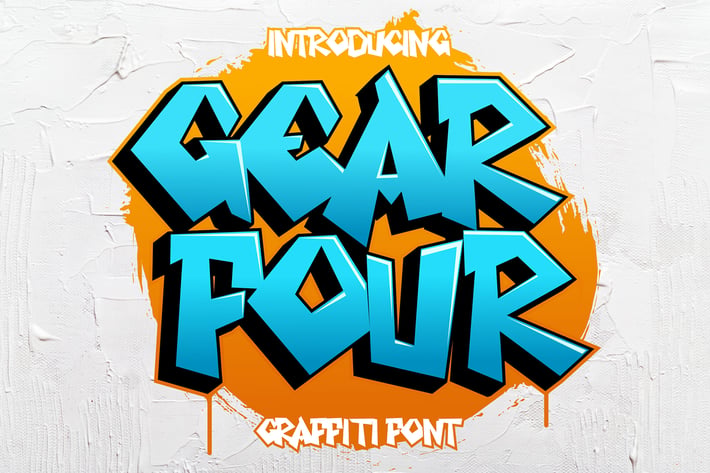
Gear Four - Graffiti Font
Gear Four is a spectacular font with a graffiti style for your design to look awesome. It will elevate a wide range of design projects to the highest level, be it branding, headings, invitations, signatures, logotypes, wall art illustrations, labels, and much more!